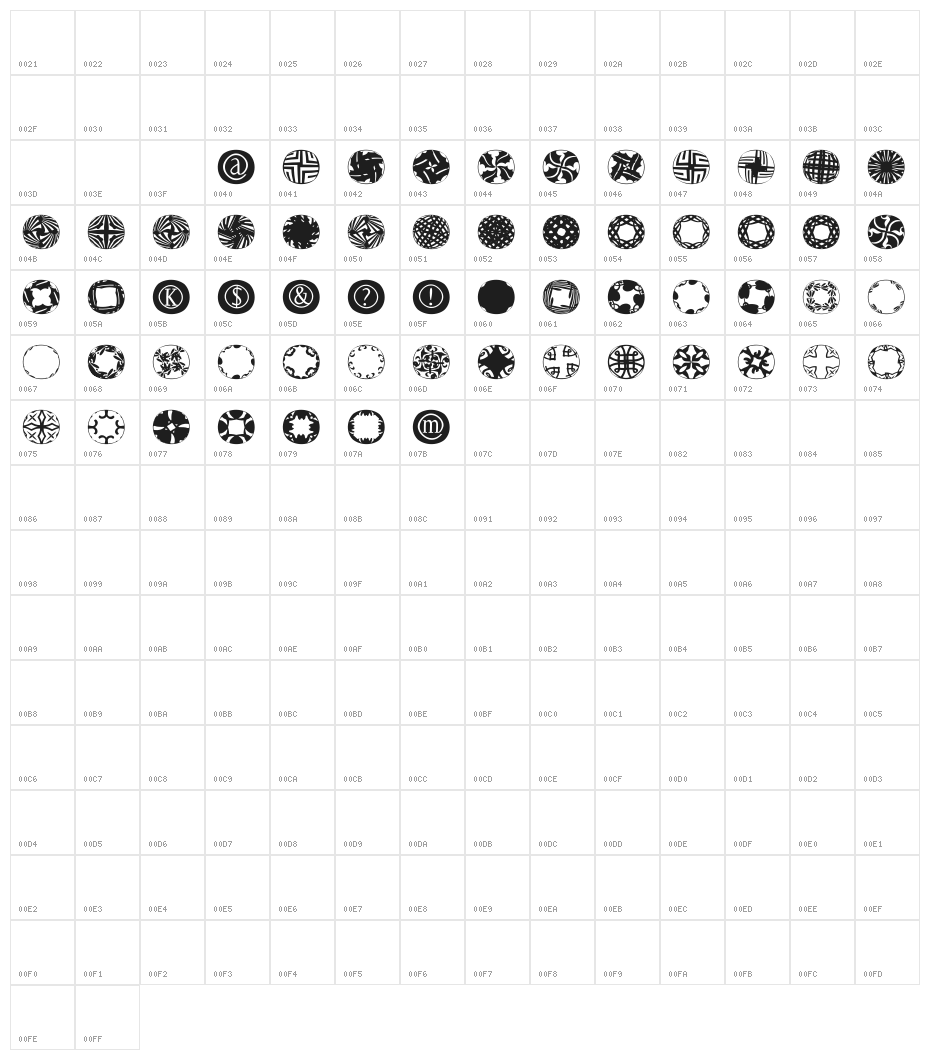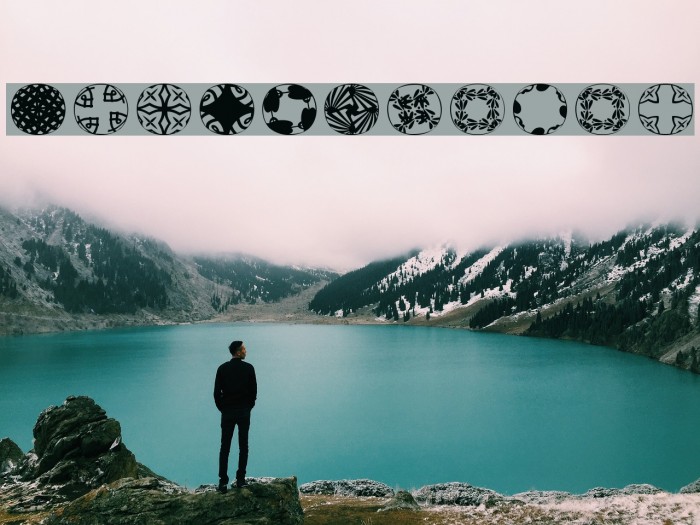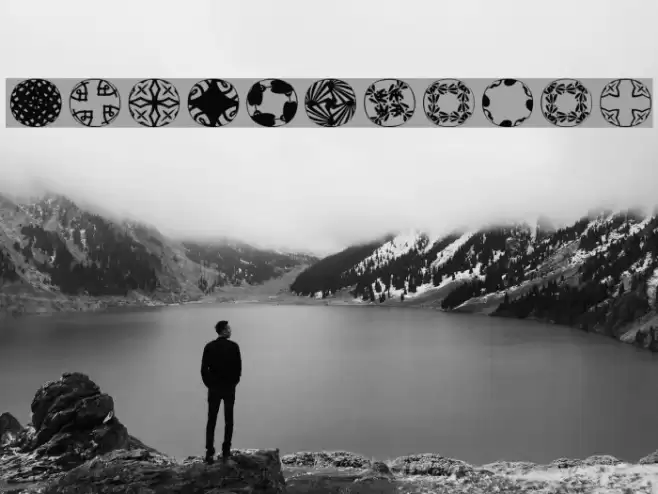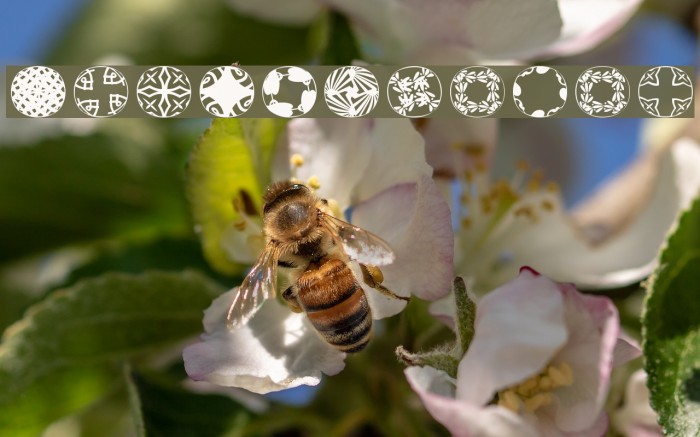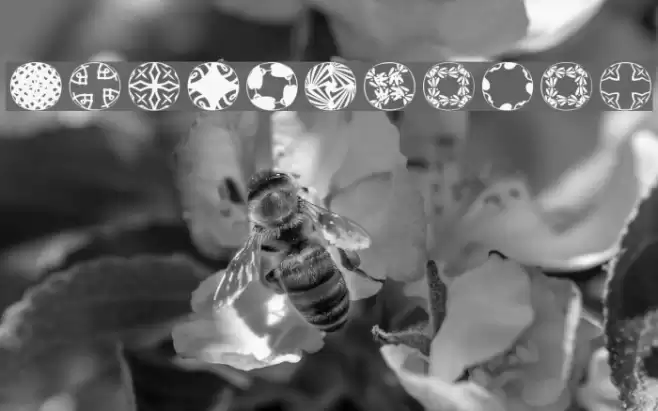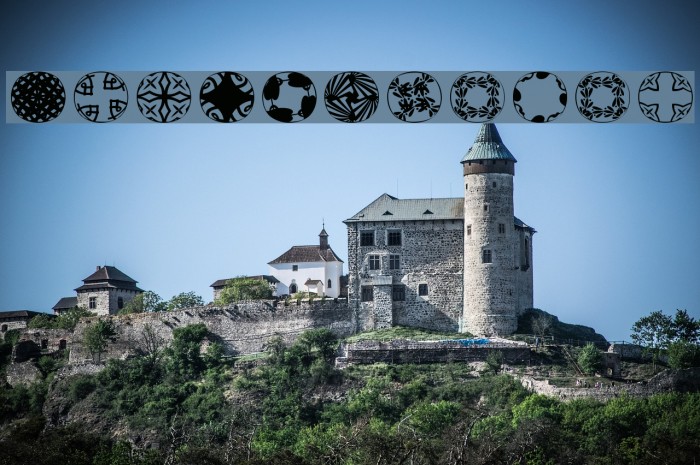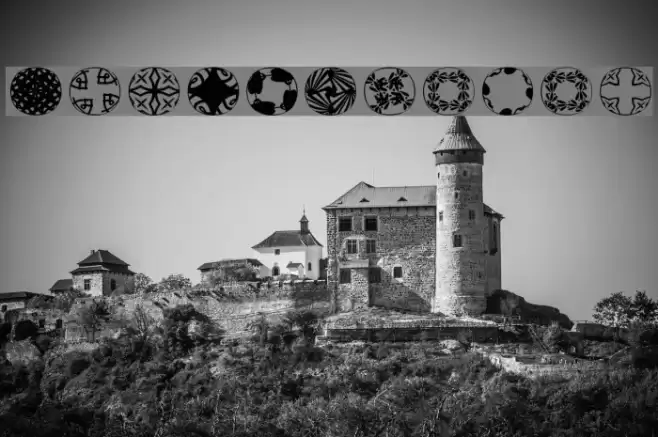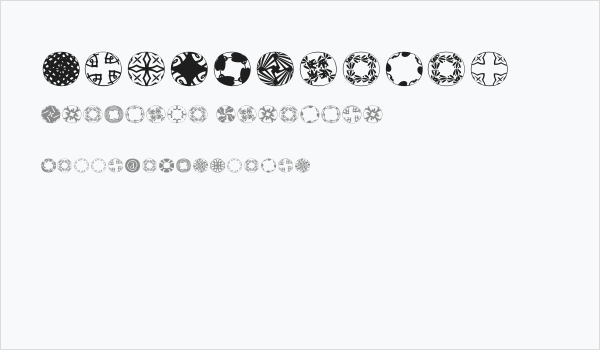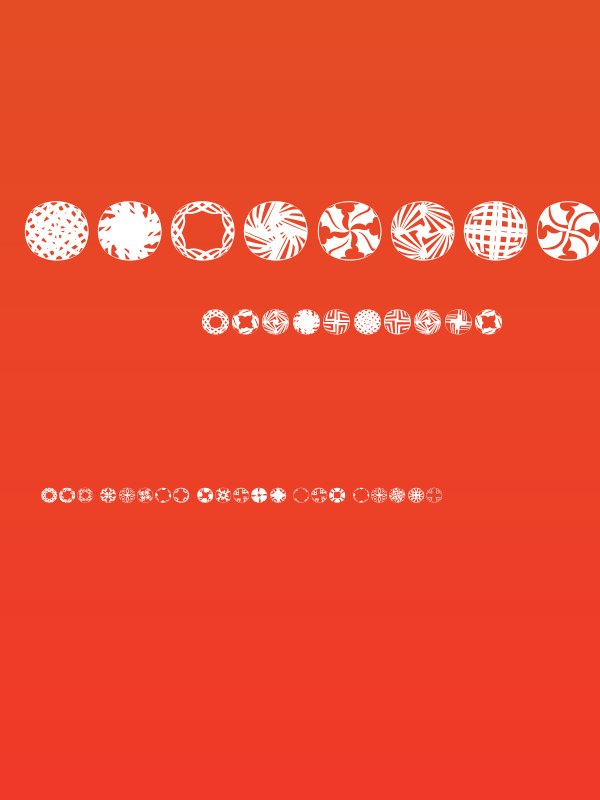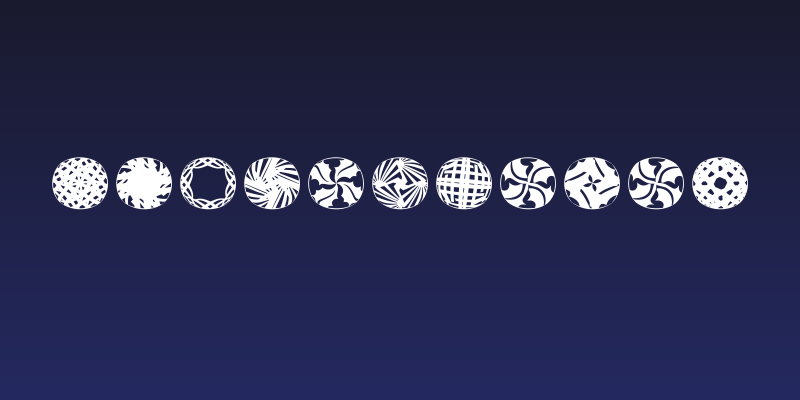
RoundPieces-06 Font
RoundPieces-06 Description
A decorative display typeface composed of circular glyphs, each filled with unique abstract patterns and geometric motifs, offering high visual interest and variety. The characters are not traditional letterforms but rather ornamental symbols, each contained within a solid black or outlined circle.
| Overall Style | Decorative, Abstract, Modern |
| Use Case | Logos, Headlines, Decorative elements |
| Proposed Projects | Branding, packaging, posters, digital art, decorative initials, creative projects, scrapbooking. |